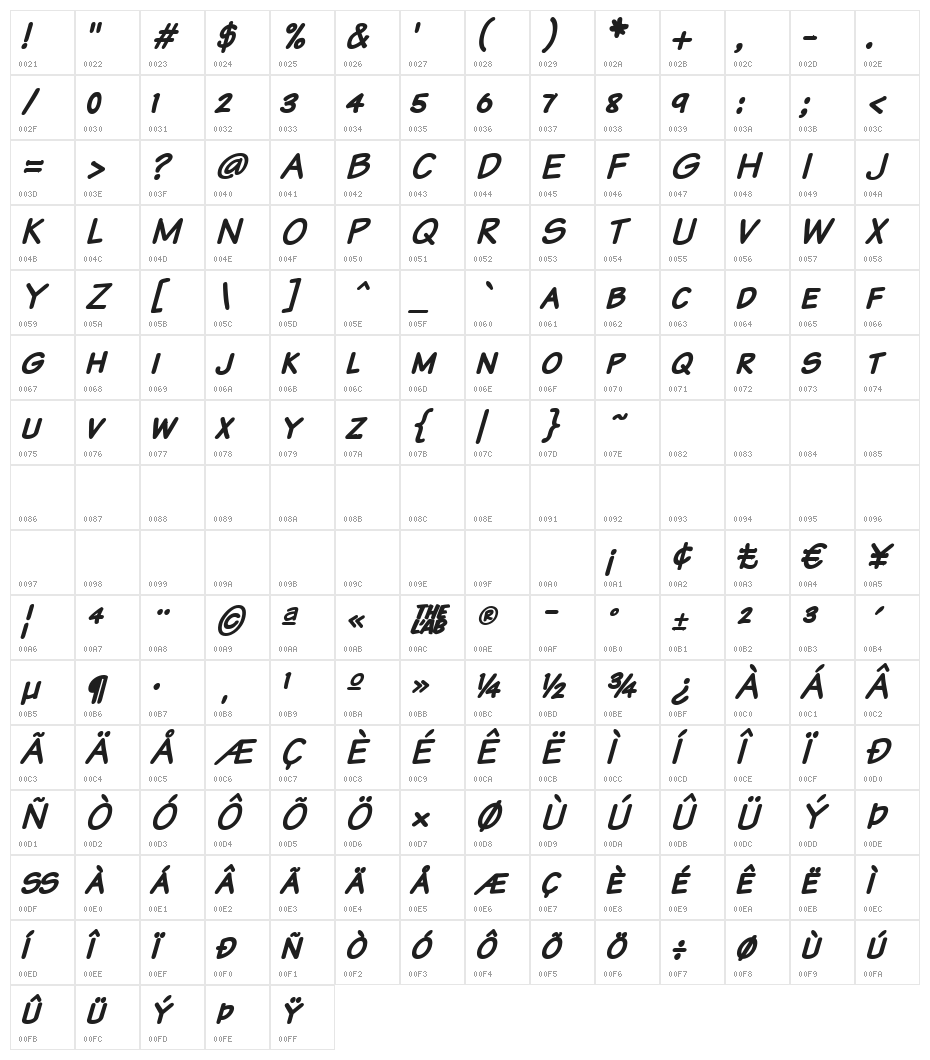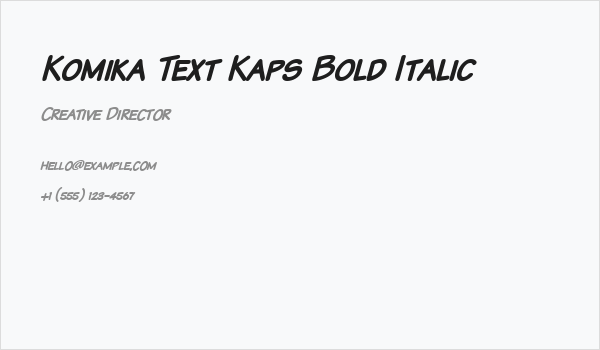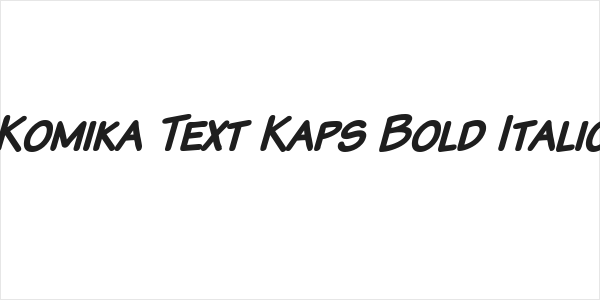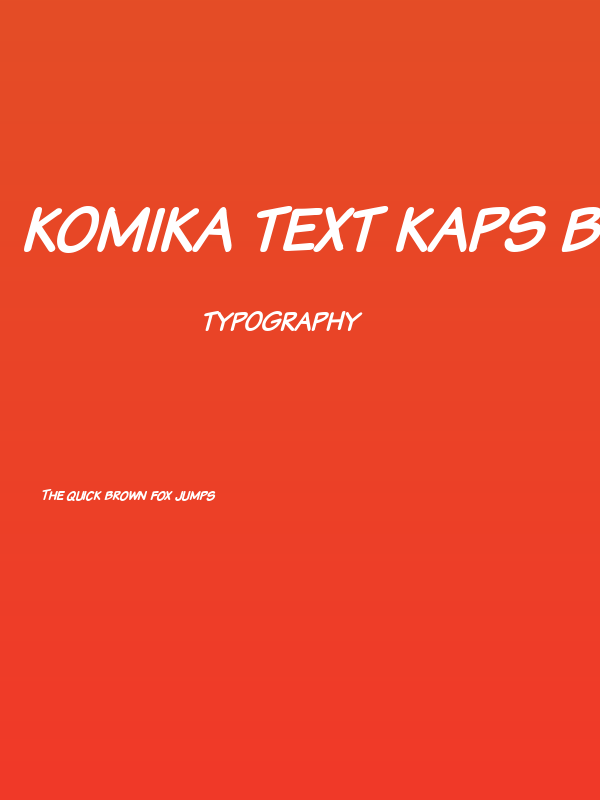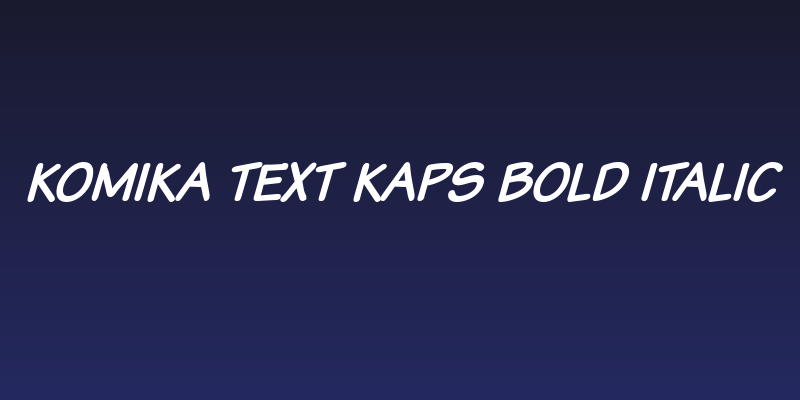
Komika Text Kaps Bold Italic Font
Komika Text Kaps Bold Italic Description
This font exhibits a playful and dynamic style, characterized by its bold and italicized letterforms. The strokes are thick and rounded, giving it a friendly and approachable appearance. The letters are slightly slanted, enhancing the sense of movement and energy. The font maintains consistent stroke thickness throughout, contributing to its bold presence. It is well-suited for designs that require a fun and informal touch, such as comic books, children's materials, or playful branding. The spacing between characters is moderate, ensuring readability while maintaining its lively character.
| Proposed Projects | Ideal for comic books, children's materials, playful branding, and informal designs. |